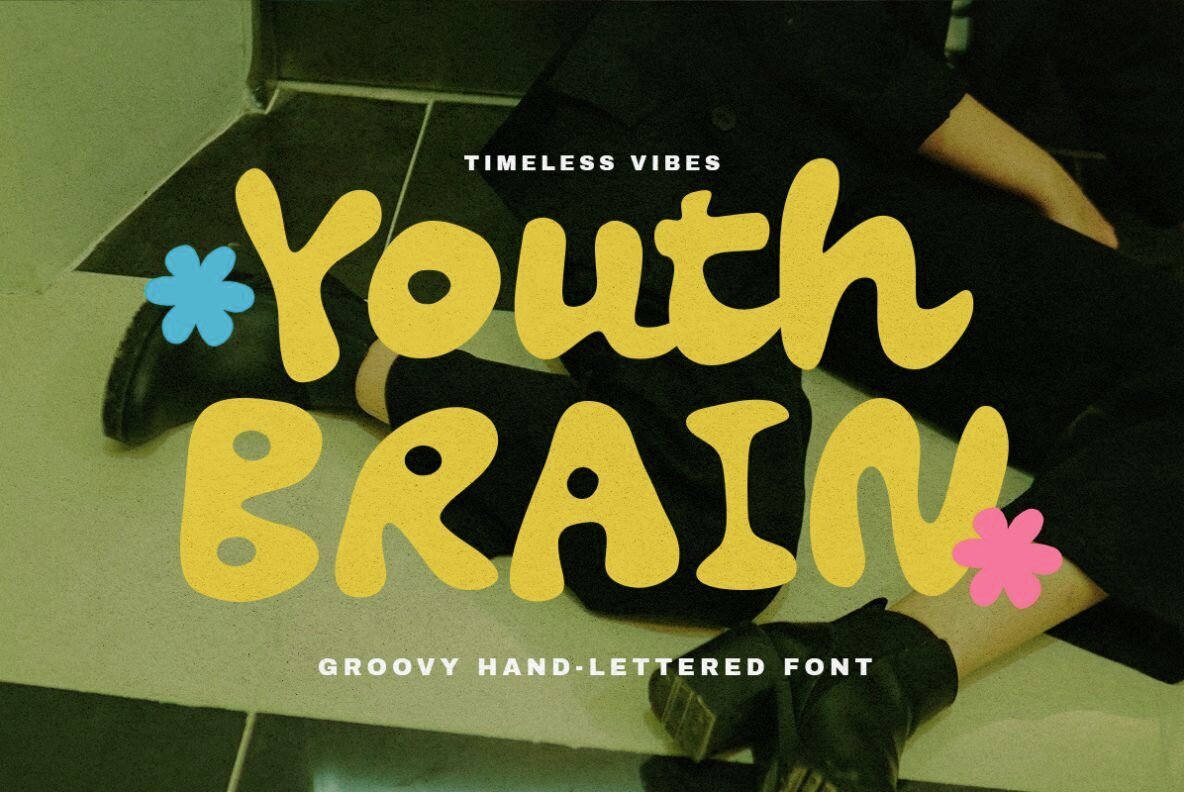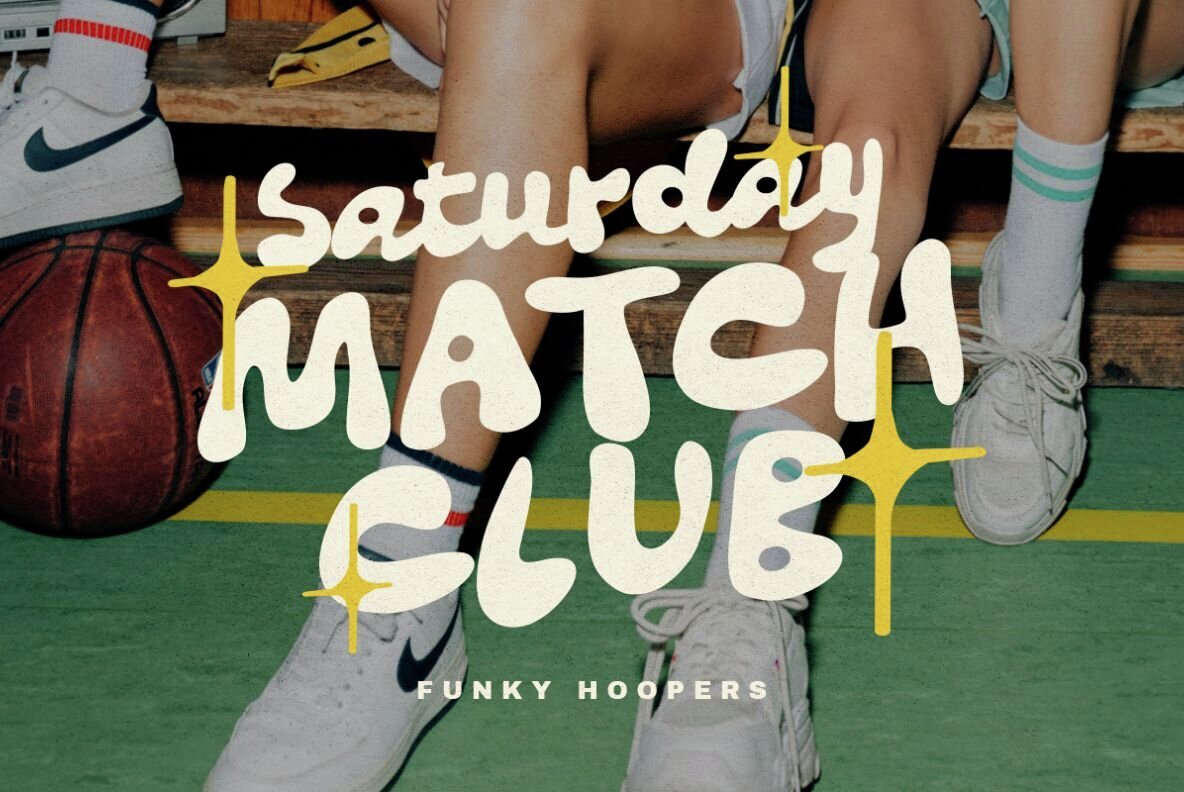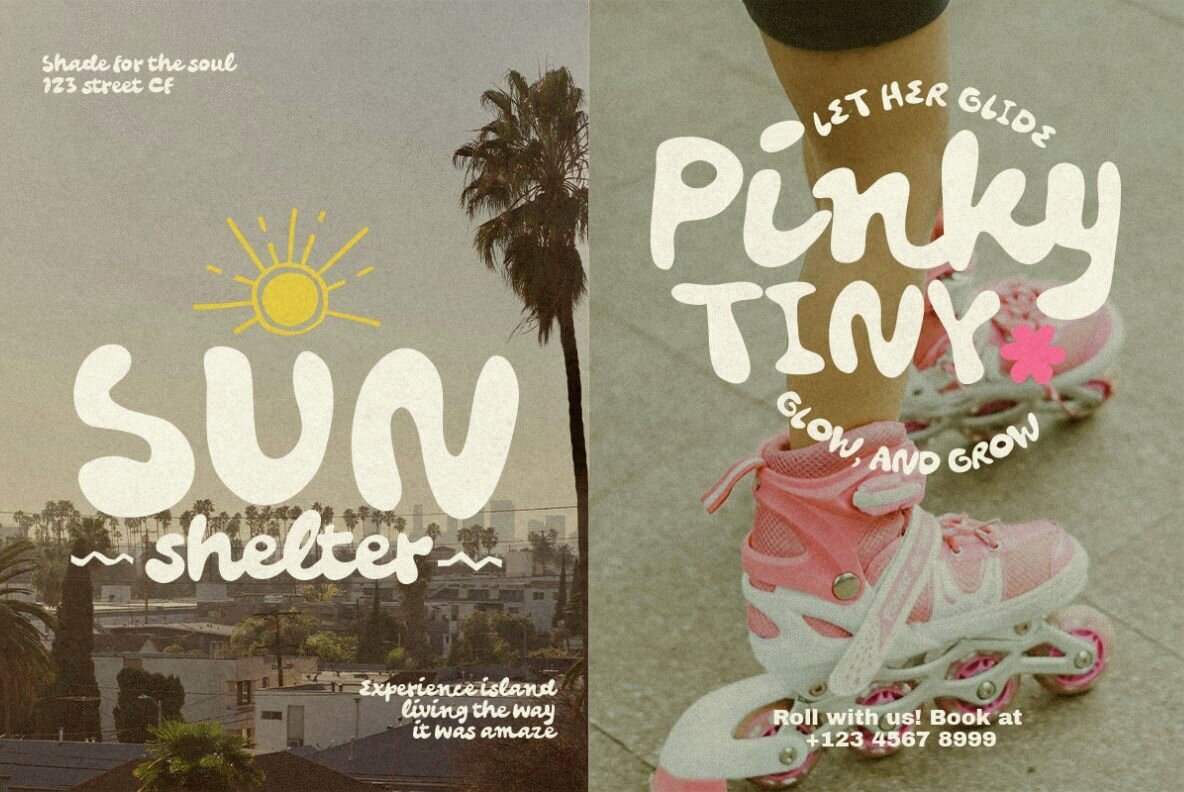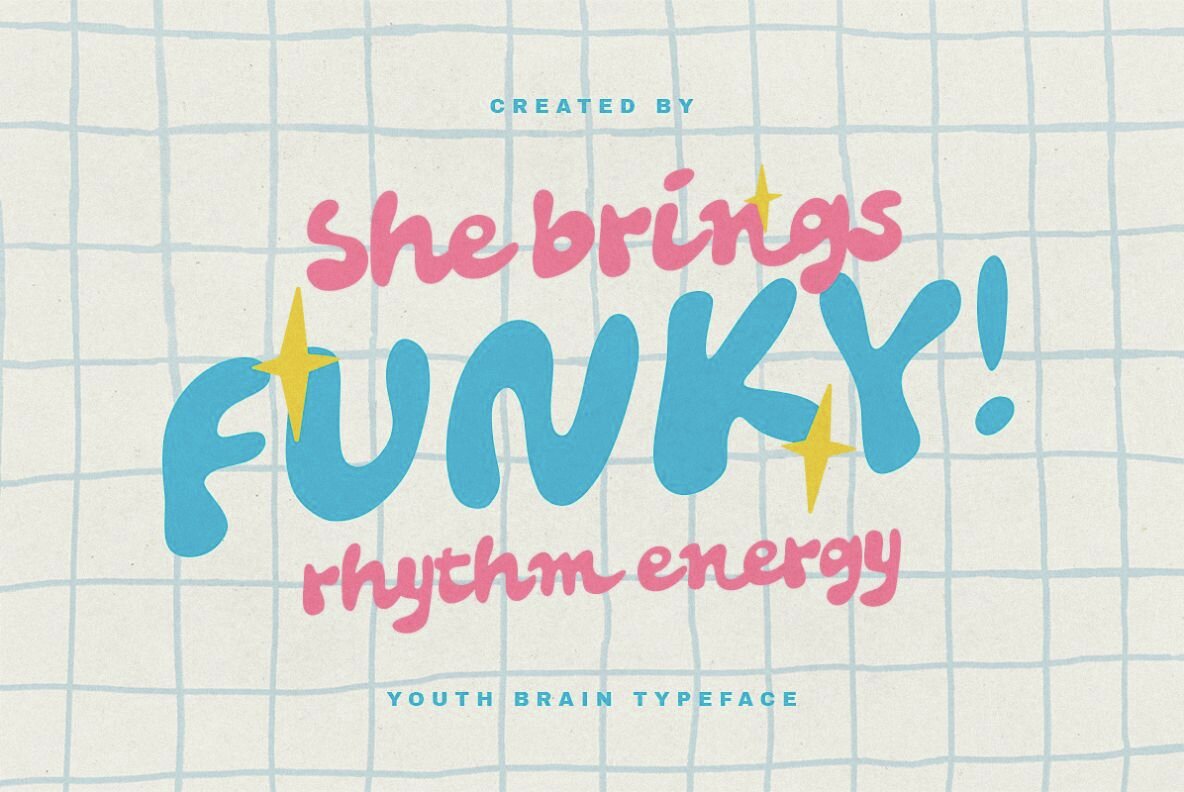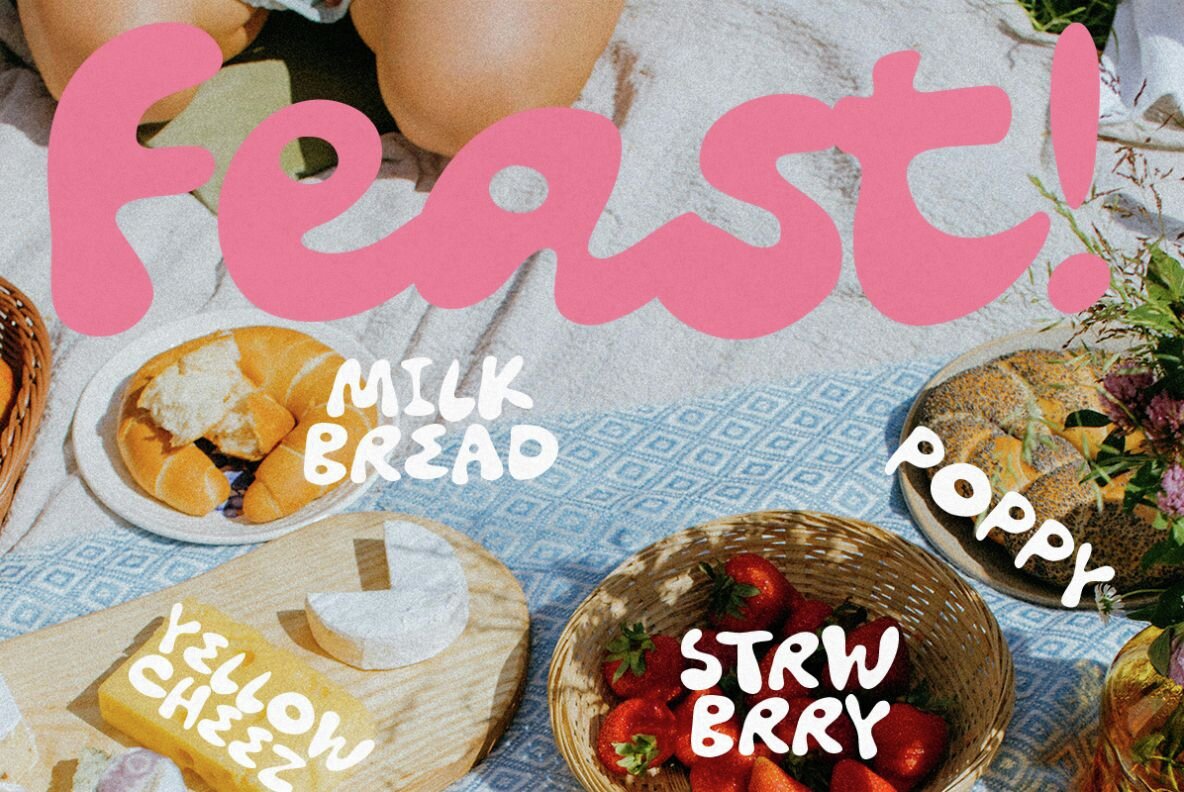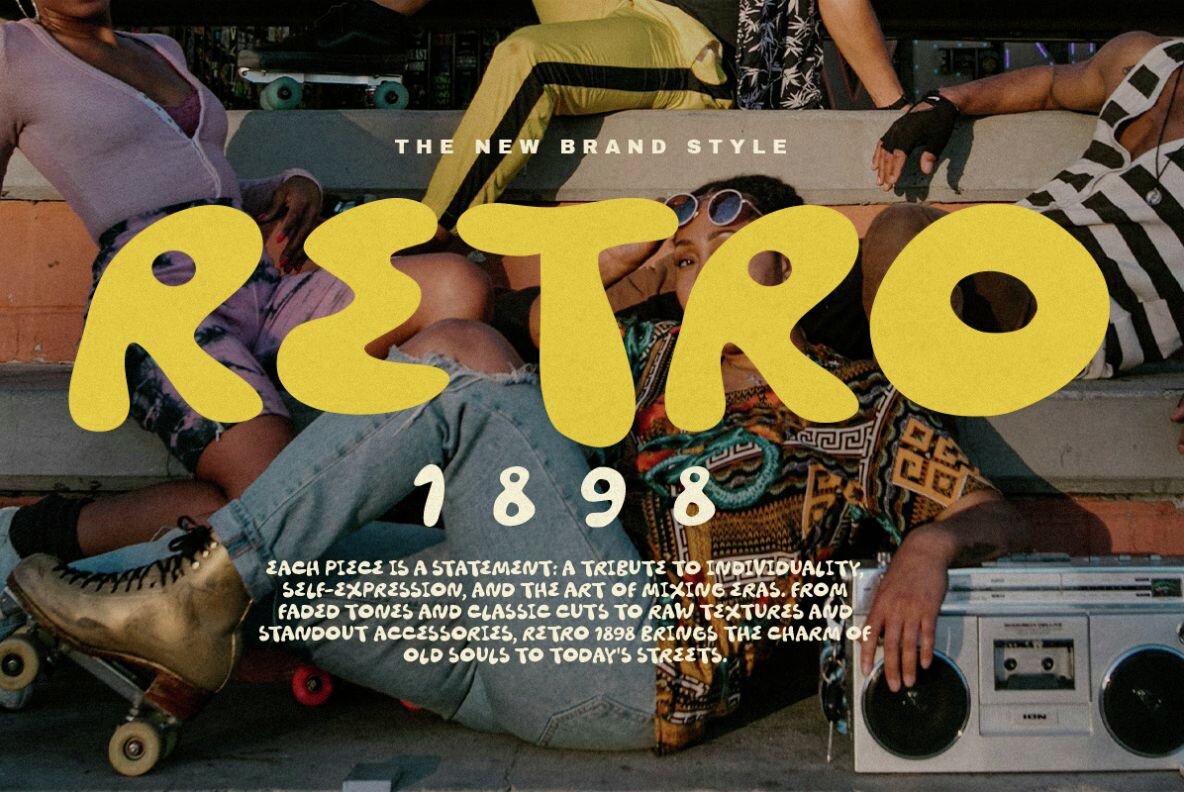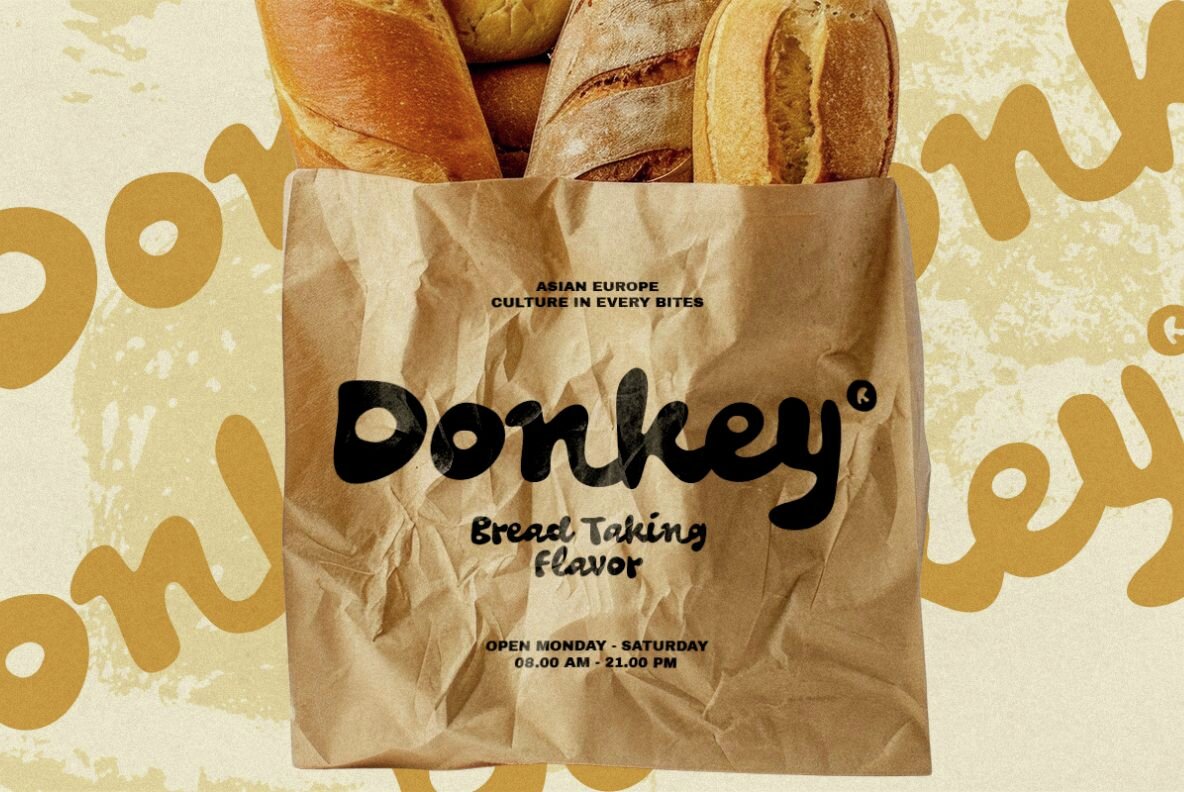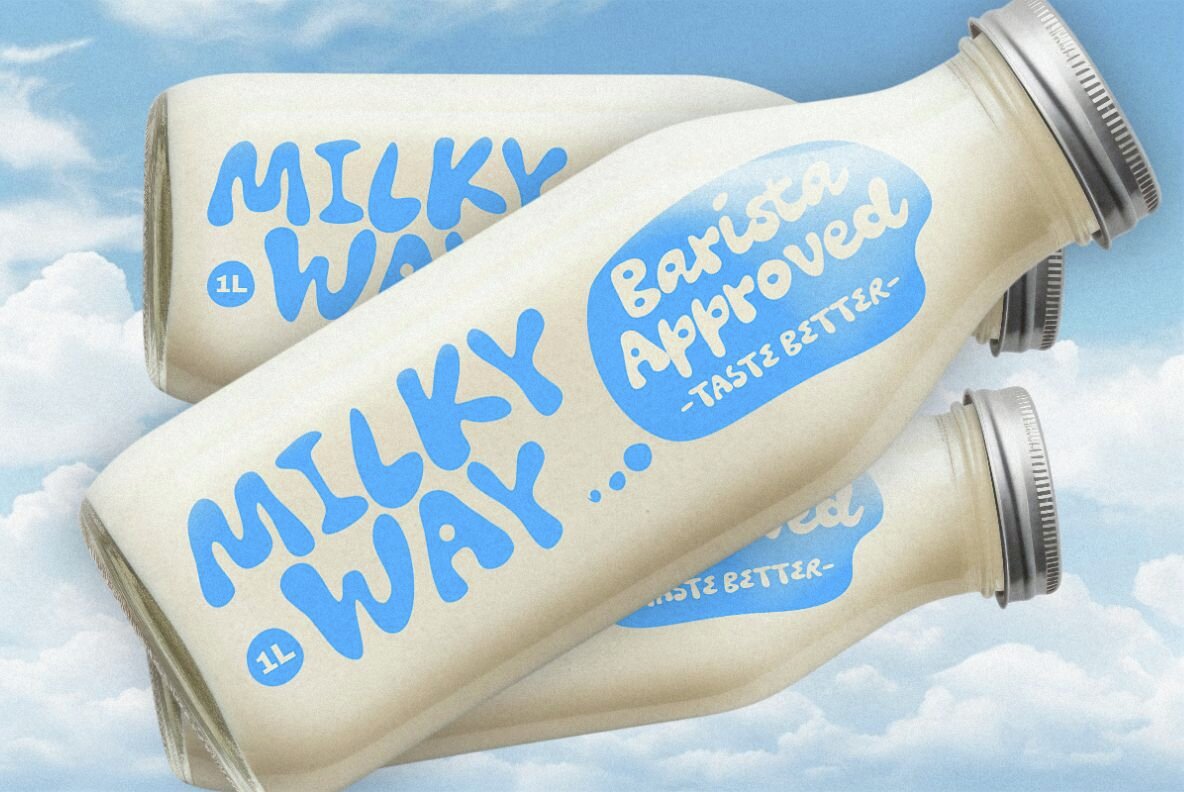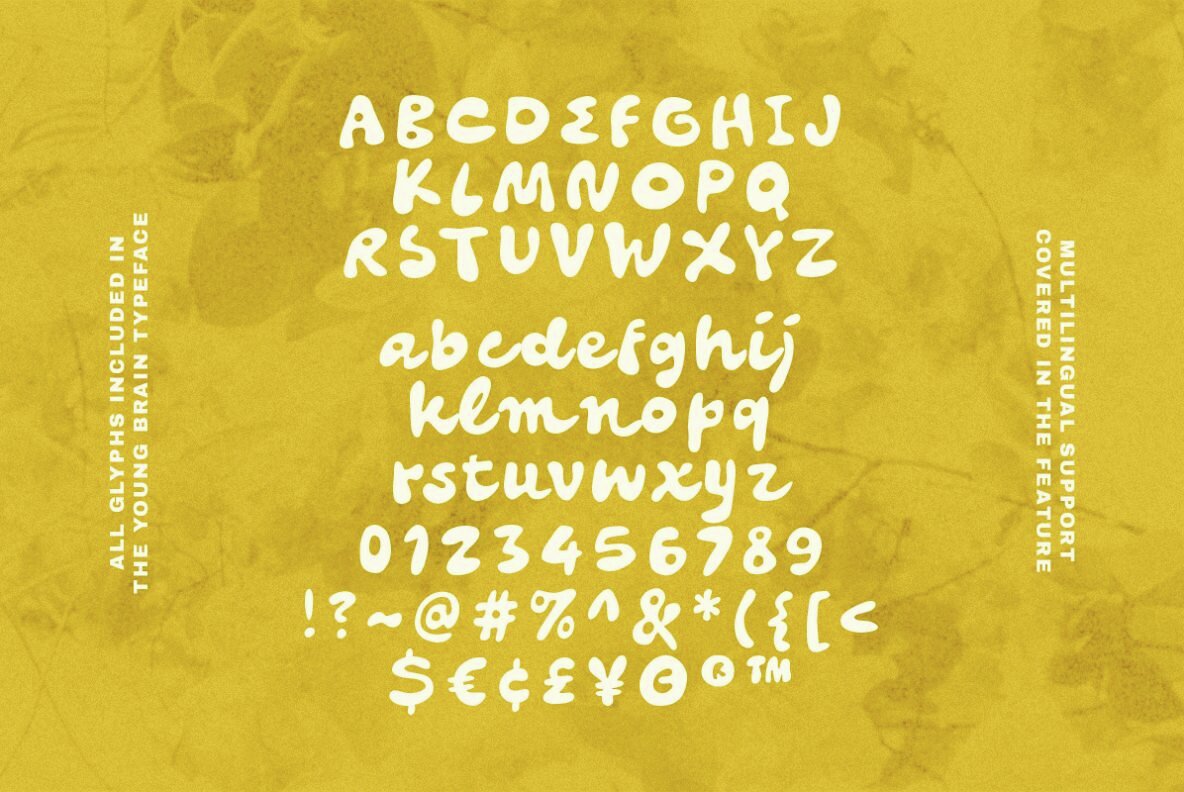
Youth Brain Font
Youth Brain Regular
Youth Brain stands out with its hand-lettered charm, offering a playful groove that's truly distinctive. Its versatility allows designers to mix and match uppercase and lowercase letters, effectively creating a dynamic font pairing. In uppercase, it takes on a sans-like appearance, while the lowercase exudes script qualities. This duality makes it ideal for a range of creative applications, from posters and branding to quotes and logotypes.Youth Brain: Hand-Lettered Font with Groovy Flair